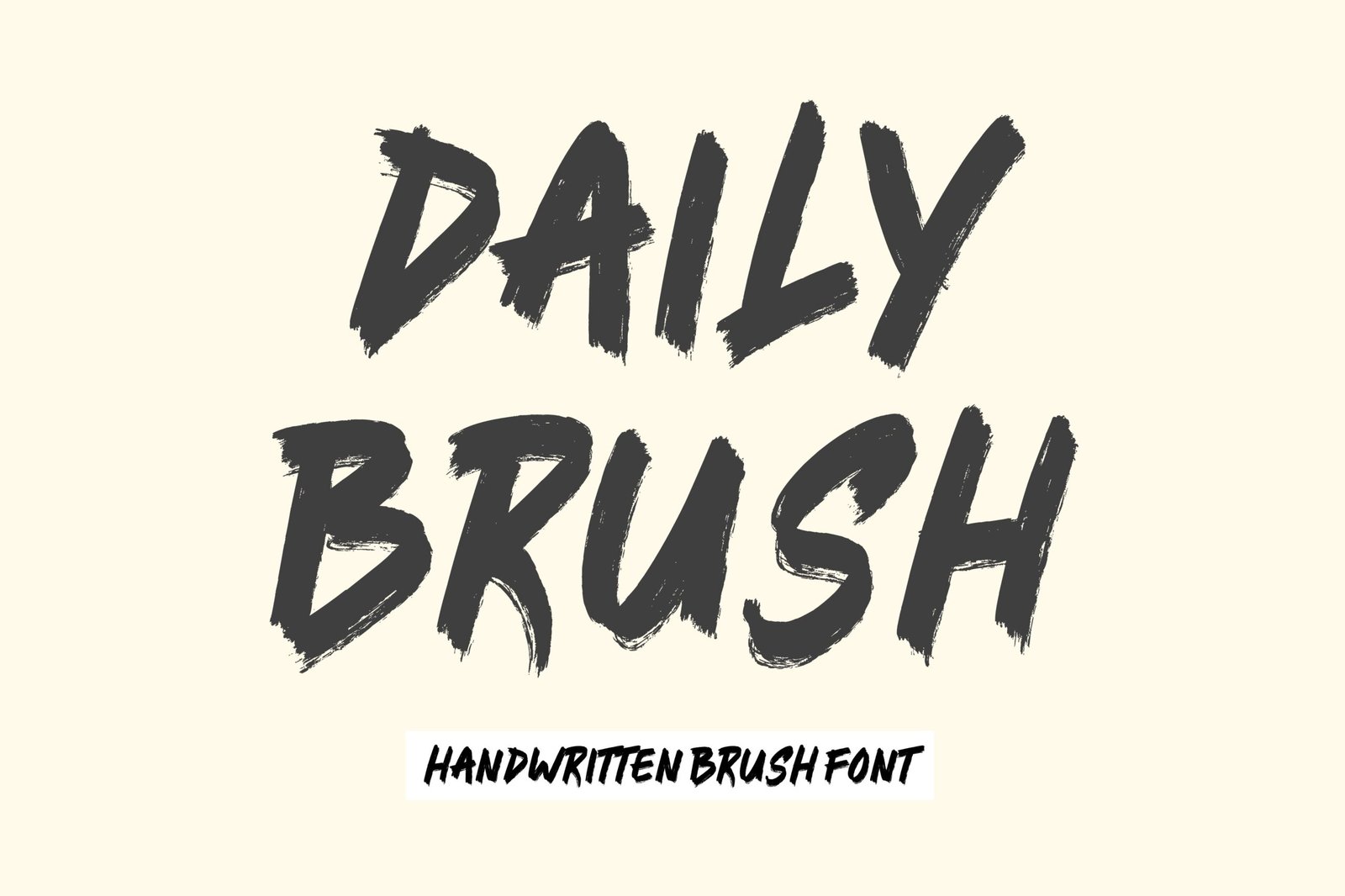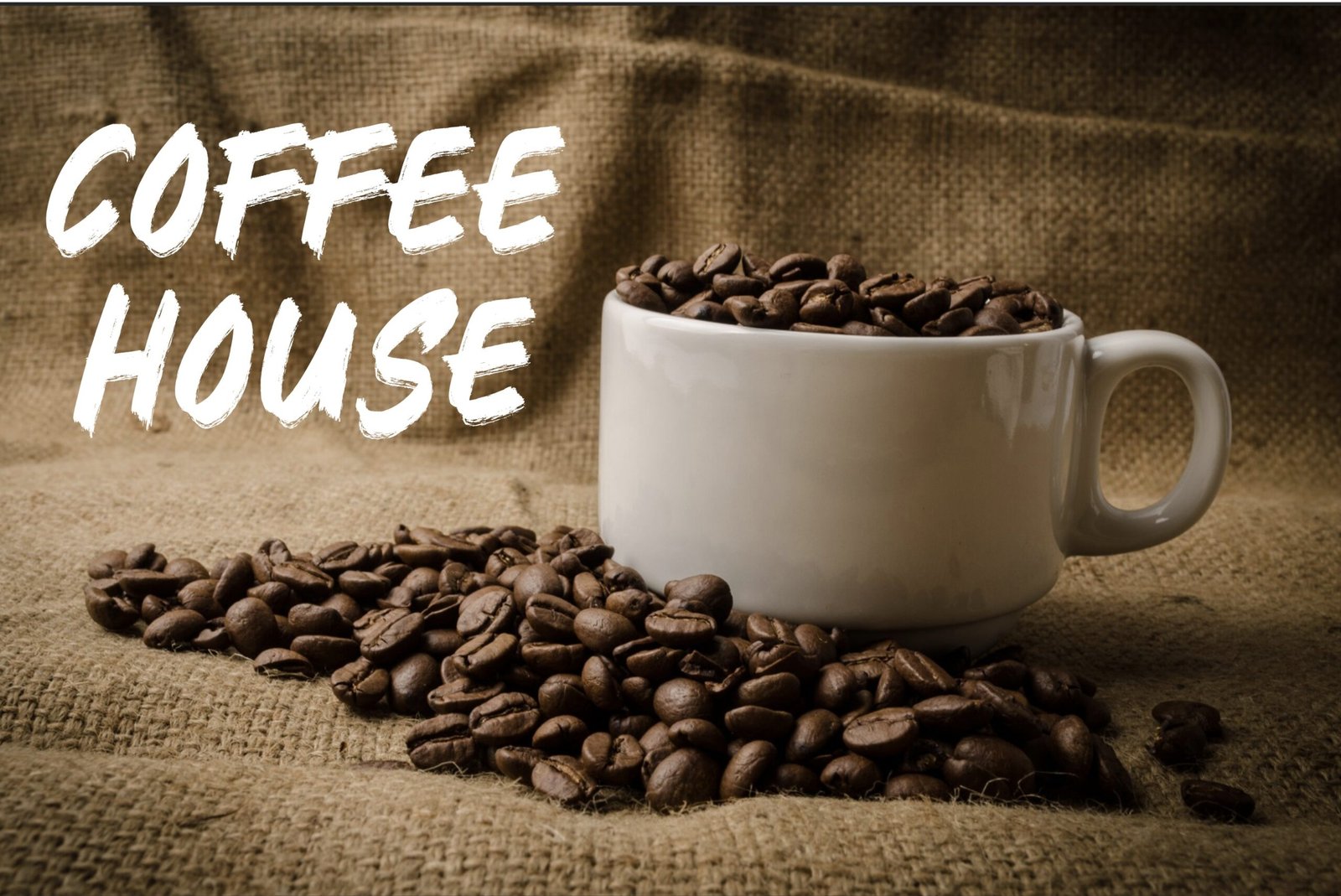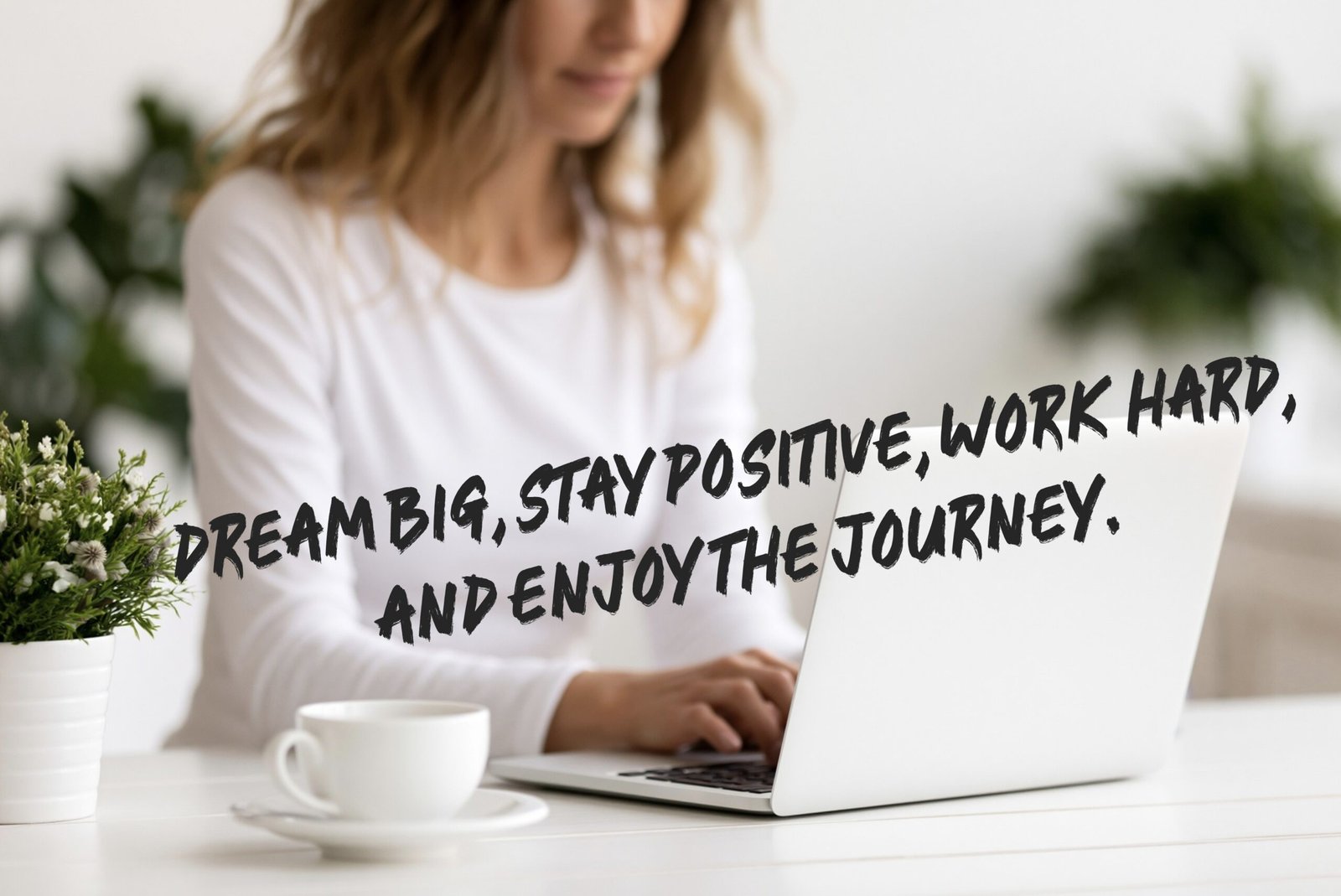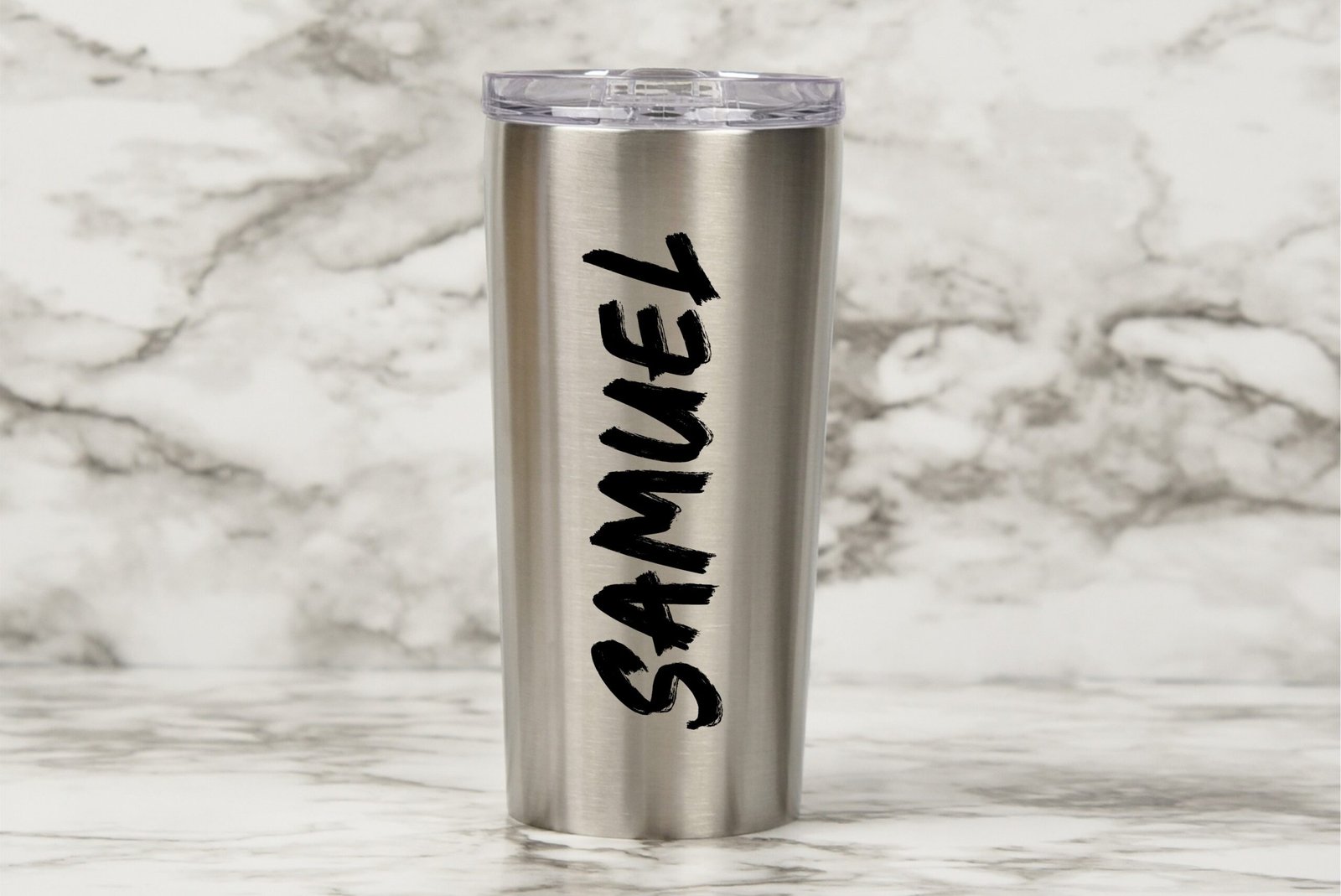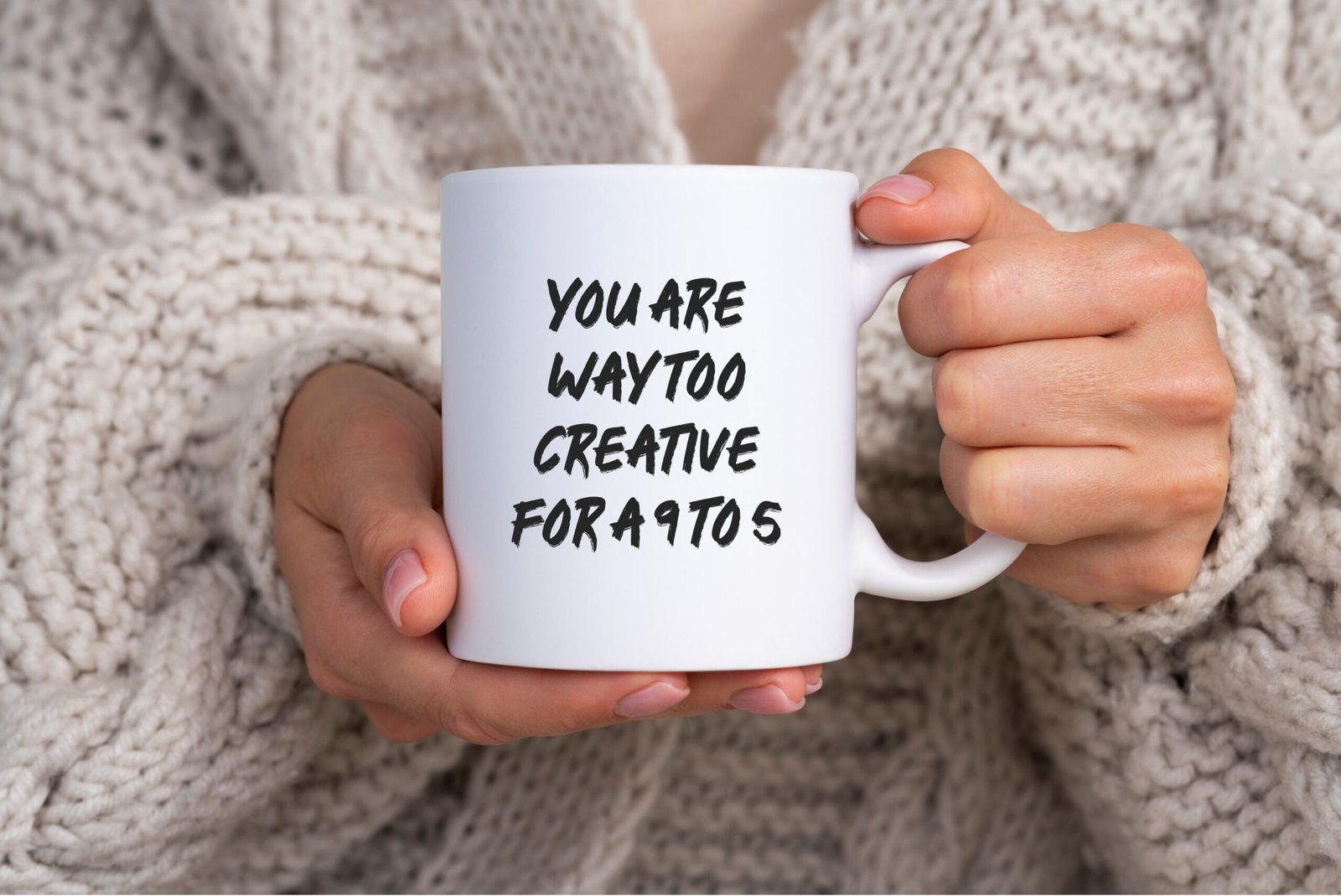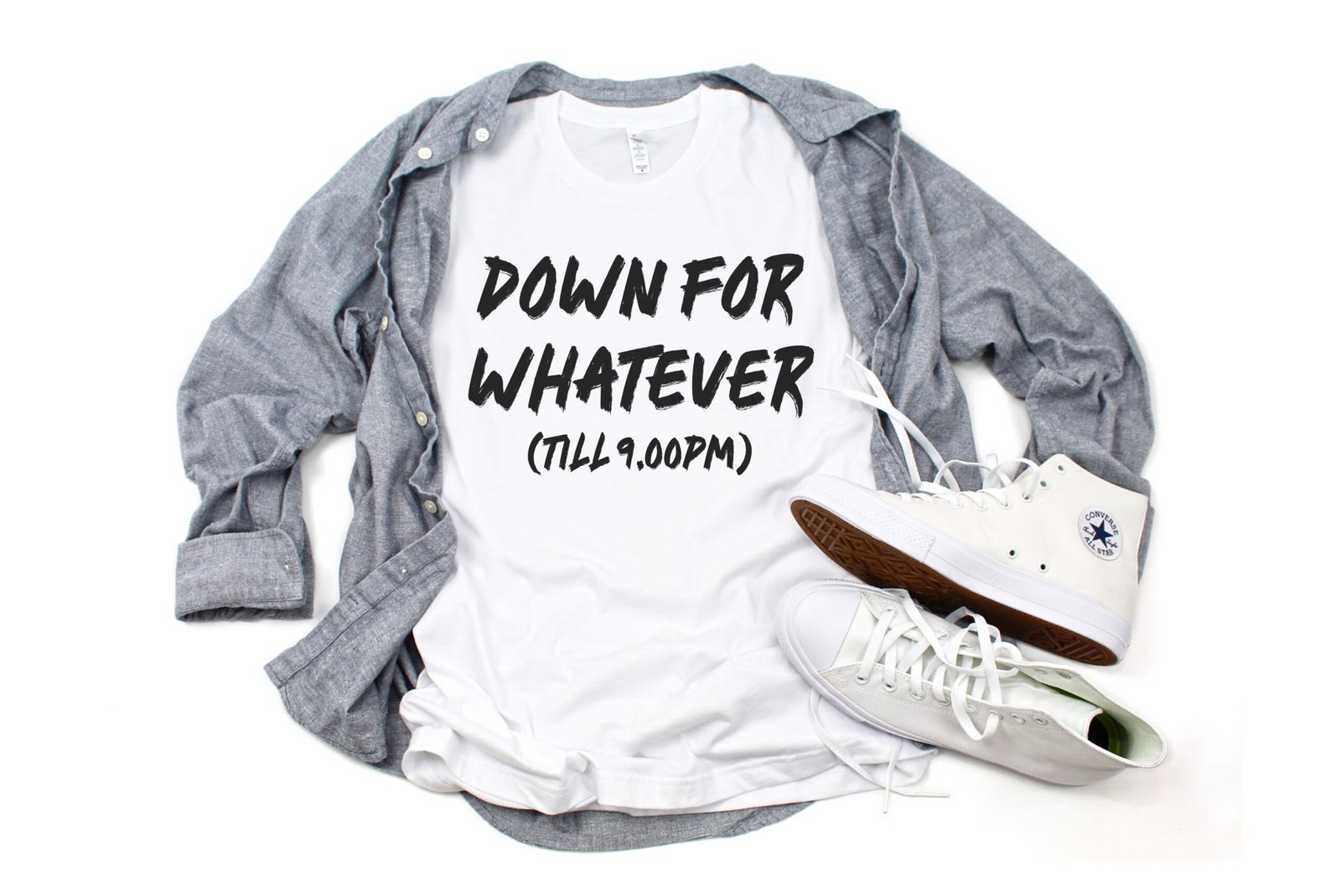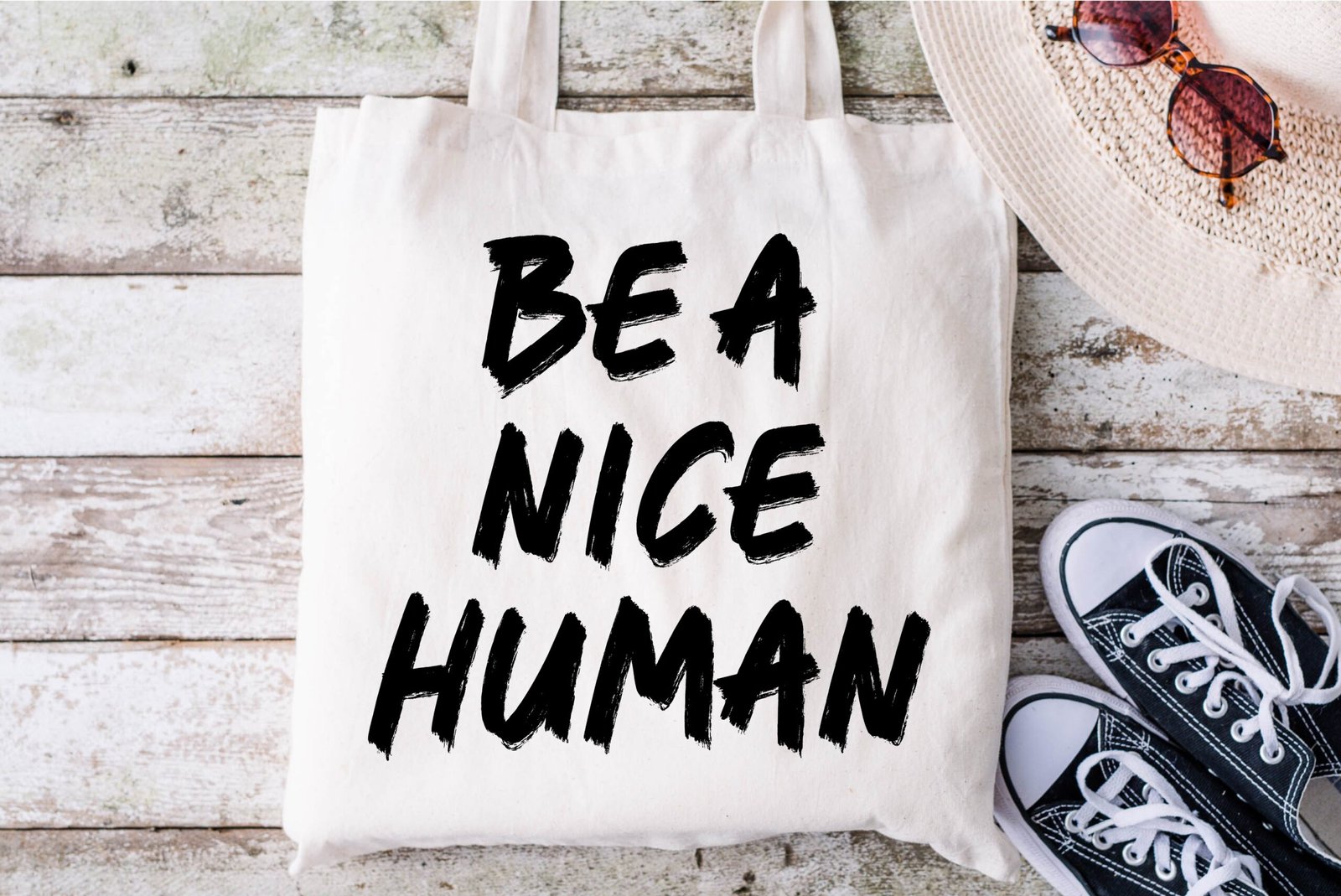
Daily Brush Font
Handwritten brush font. “Daily Brush”. Perfect for advertising and display purposes, including banners, book covers, shirts, posters, logos and much more!
This is an ALL CAPS font, featuring numbers, characters, punctuation, and accent characters.